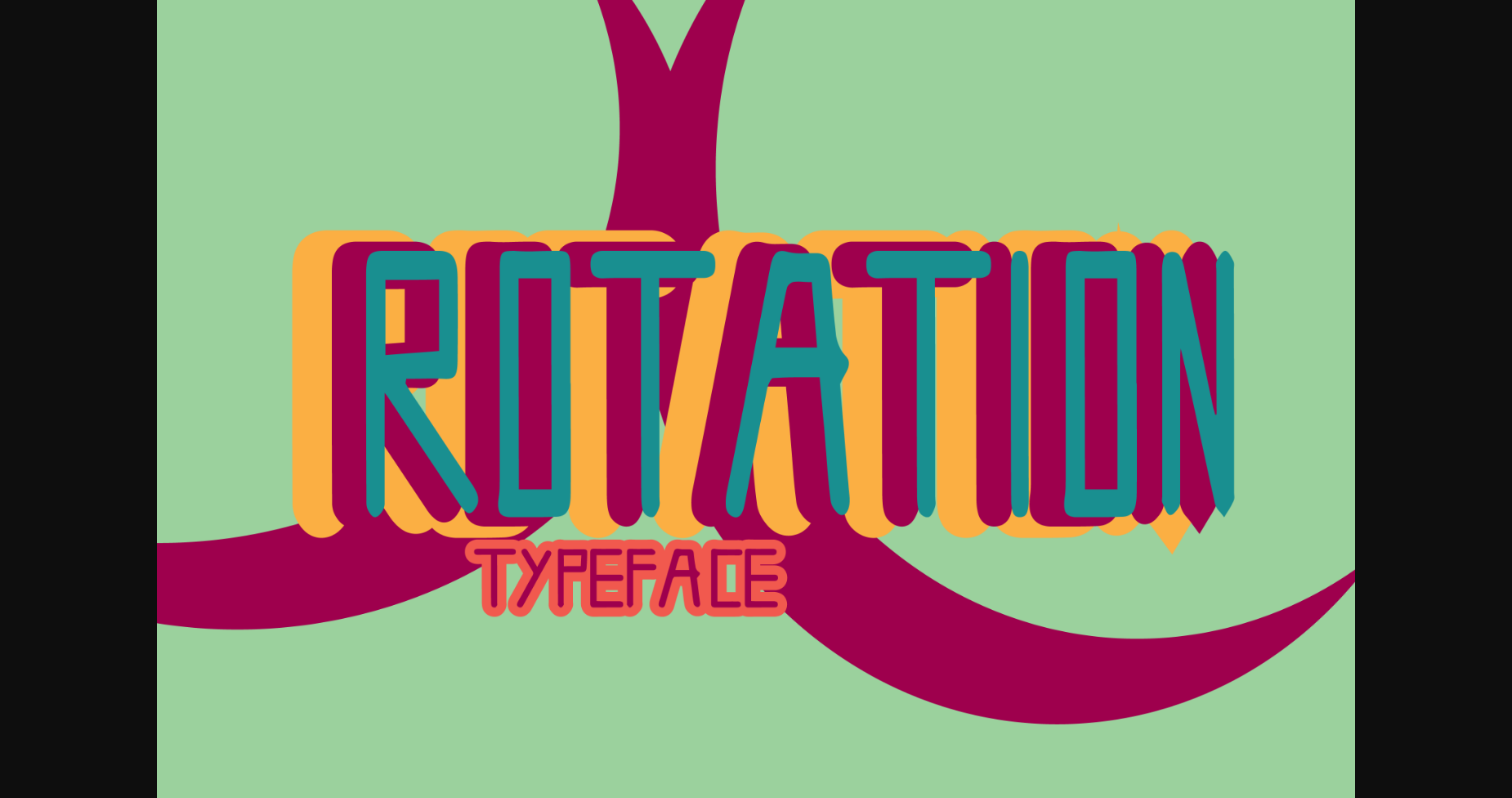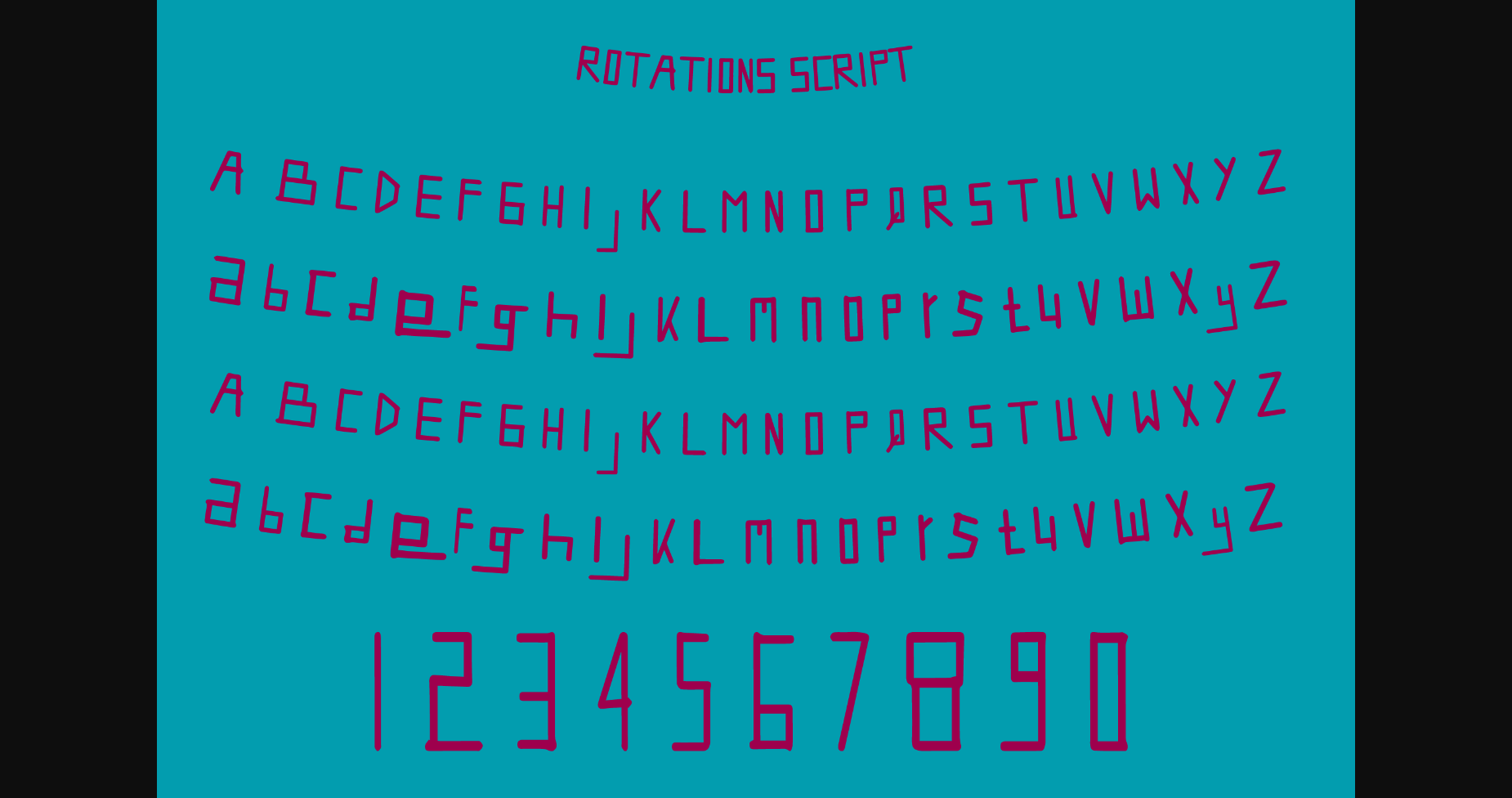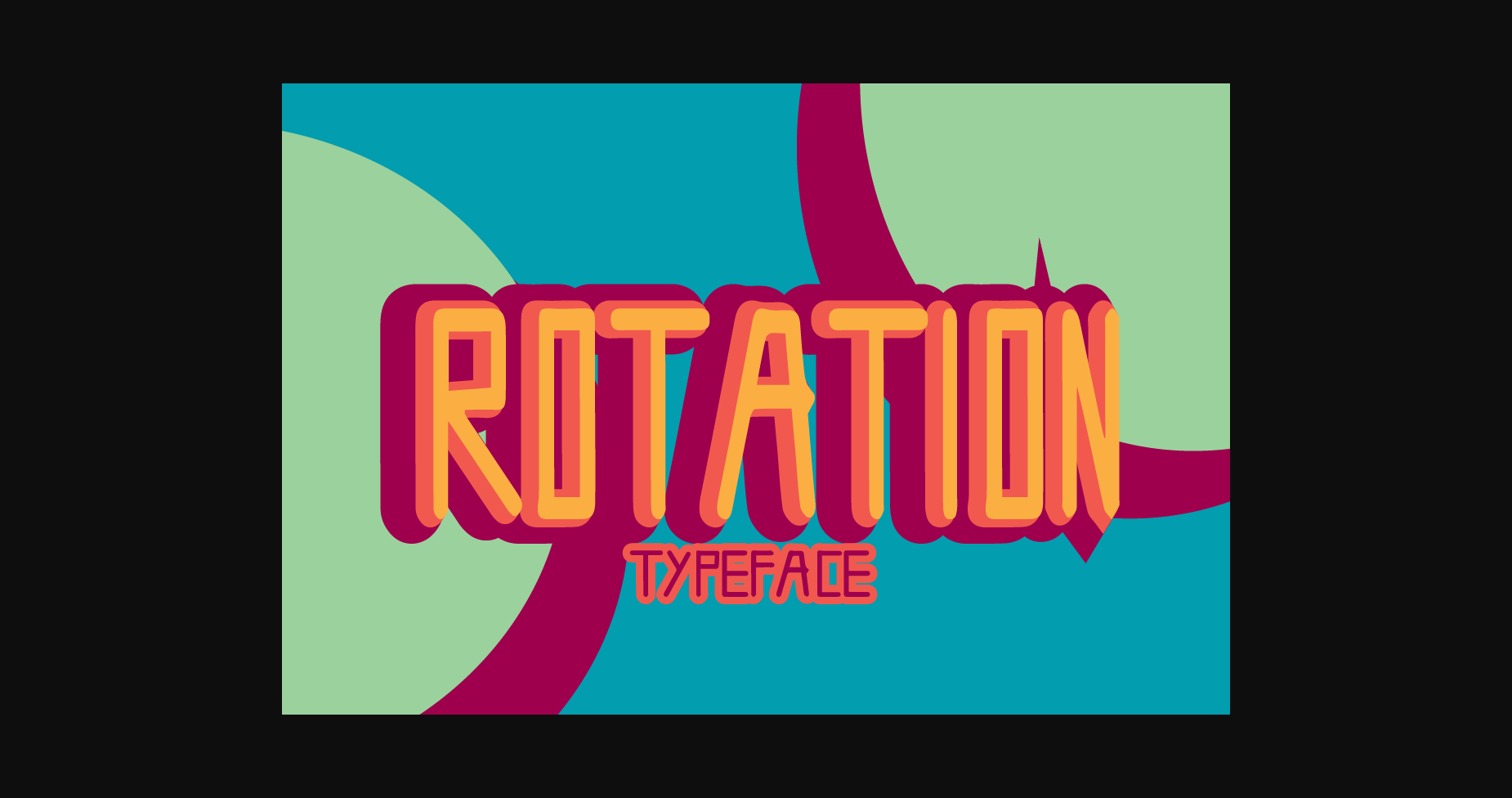
Rotation Font
About Rotation Font
Rotation is a simple and minimalist sans serif font that will look amazing on your creative ideas! Use it for product packaging, branding, banners, marketing materials, social media posts, or other creations that need inviting typography.